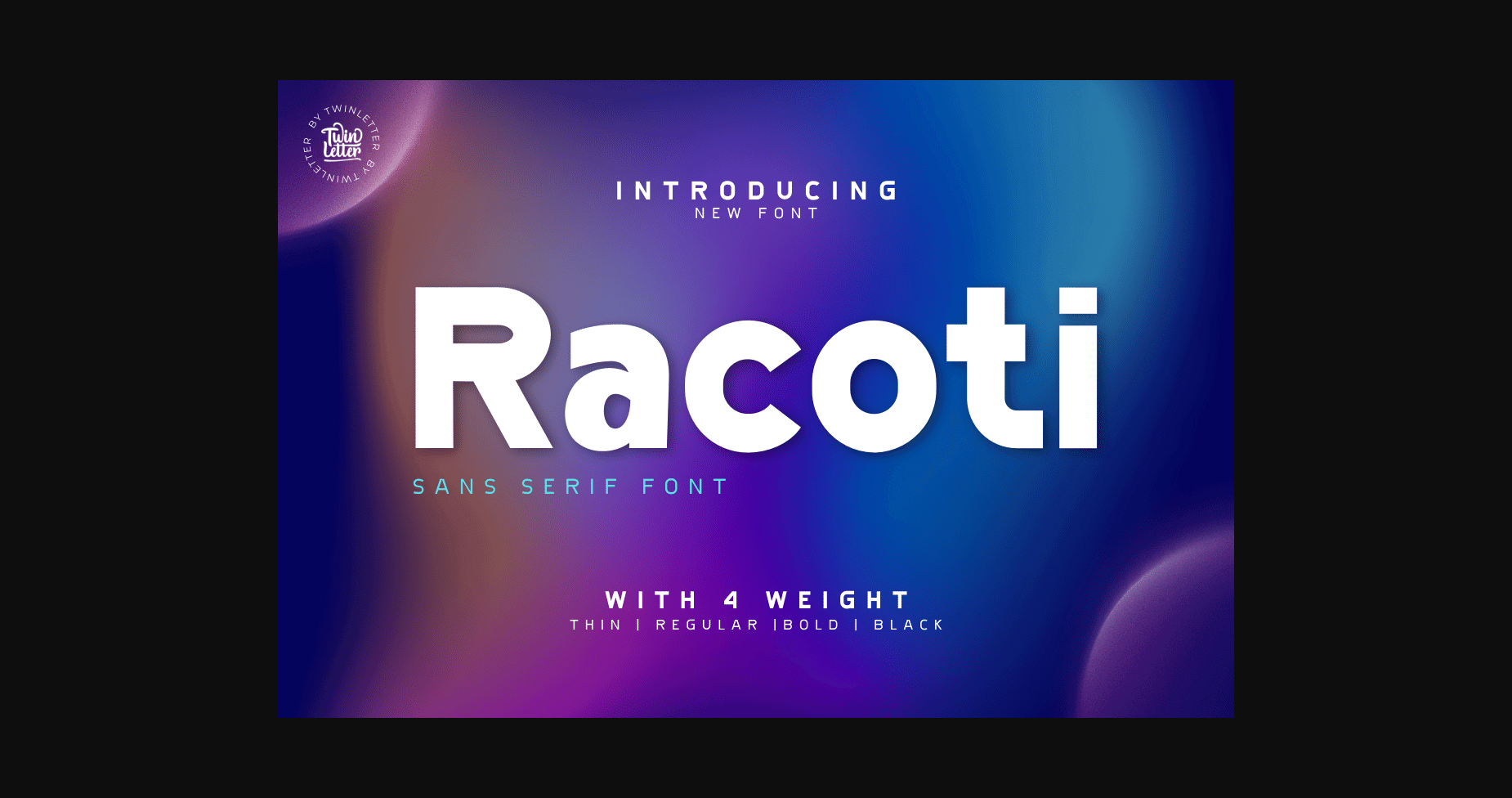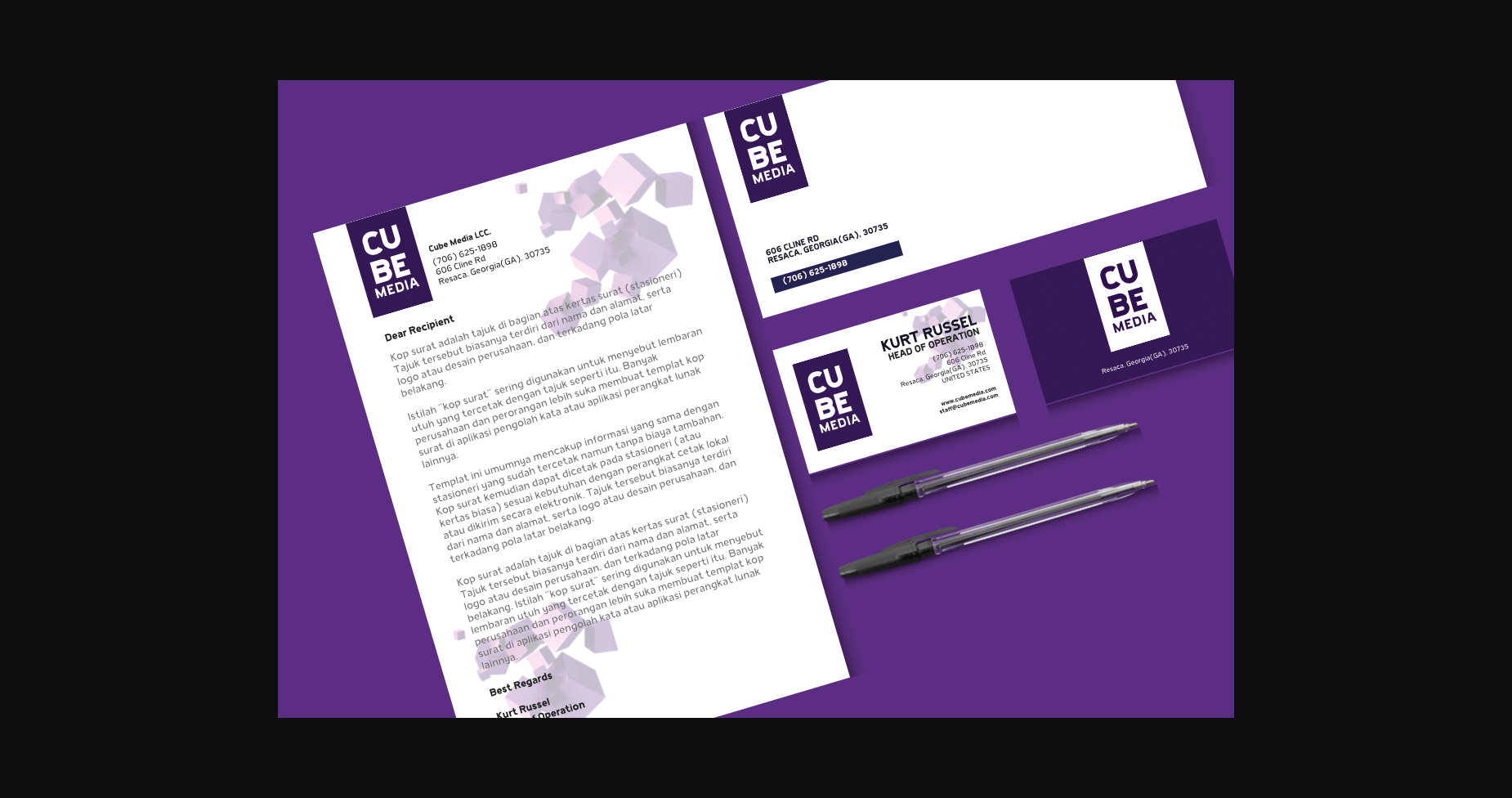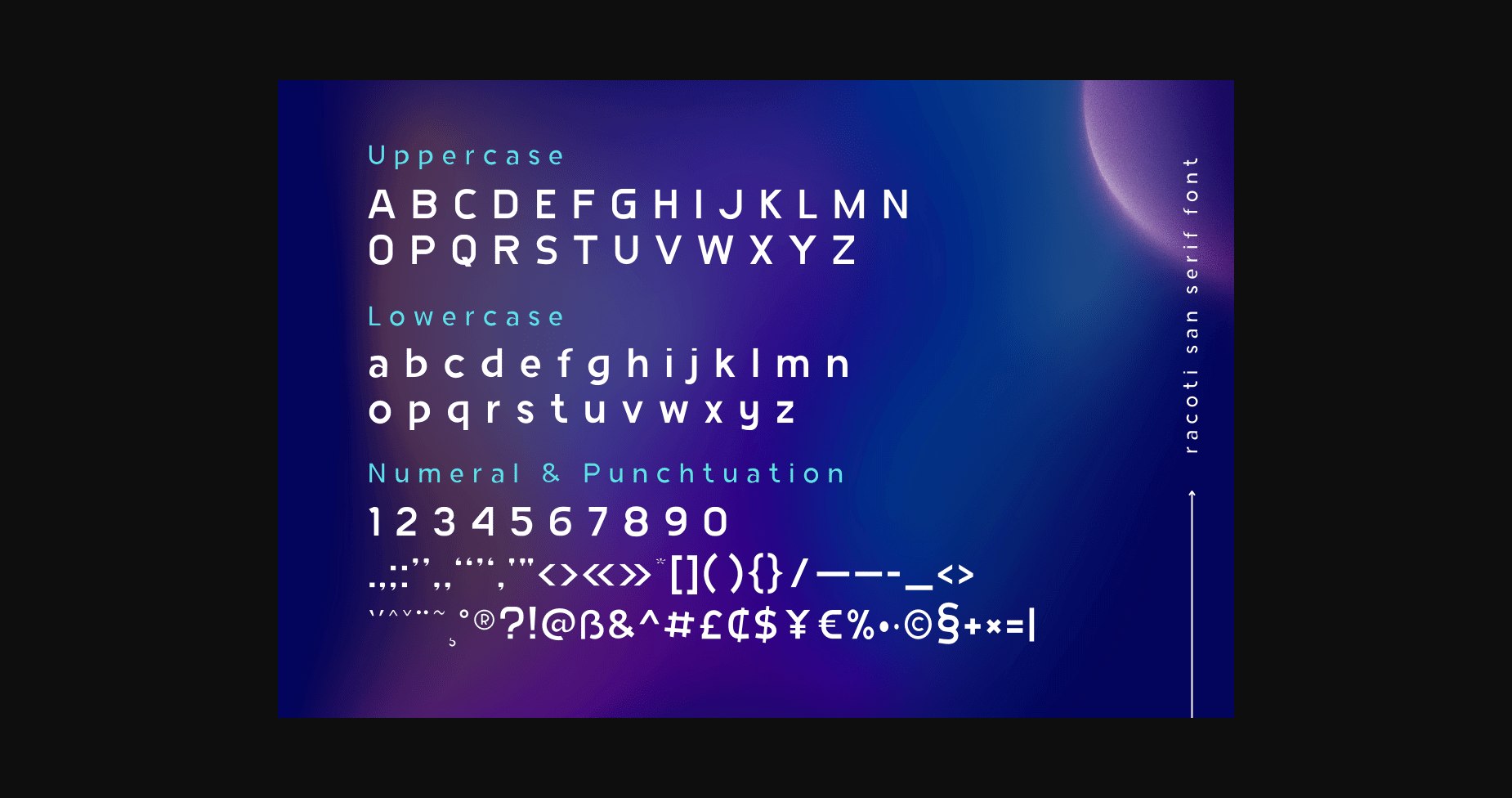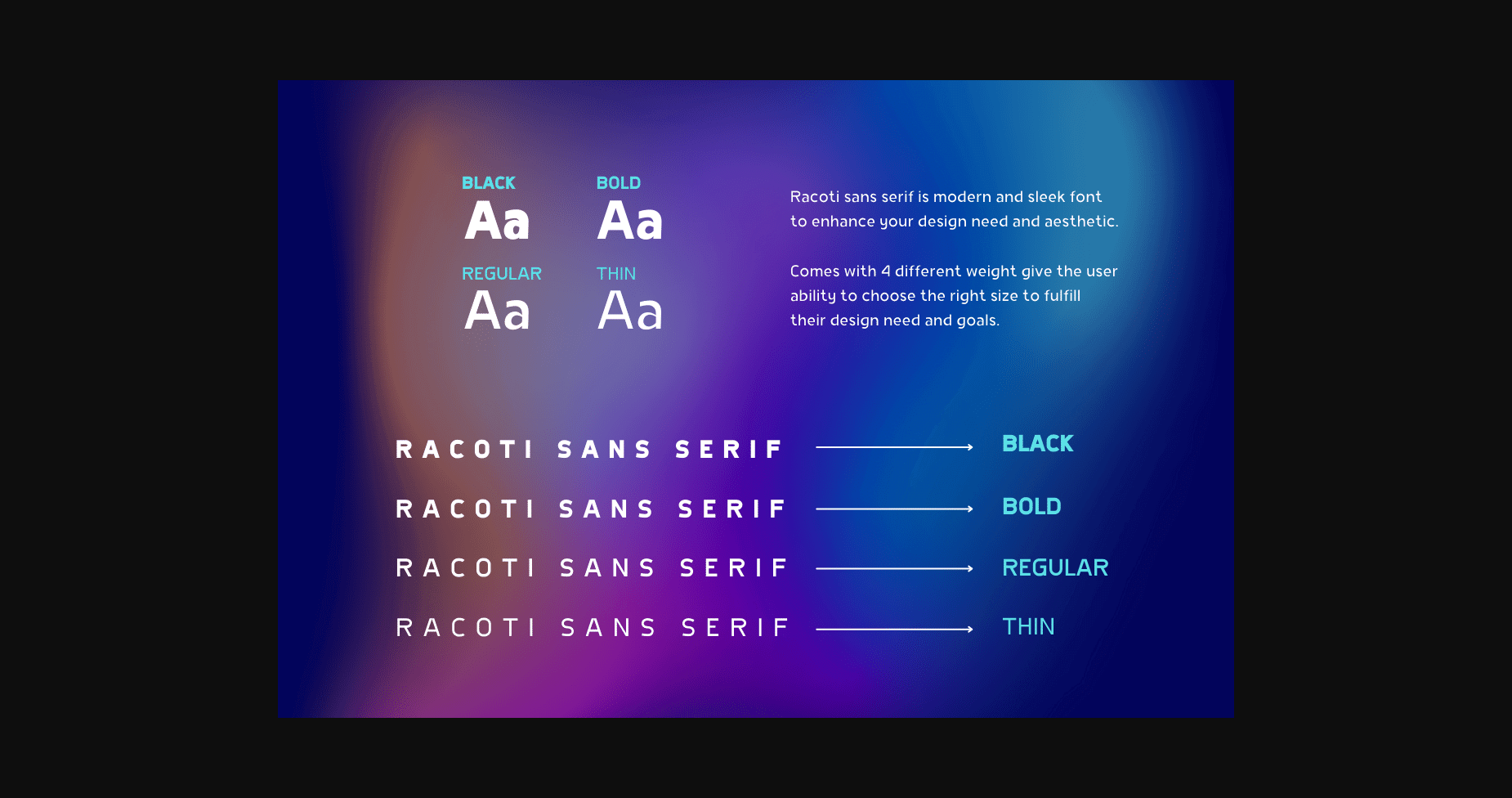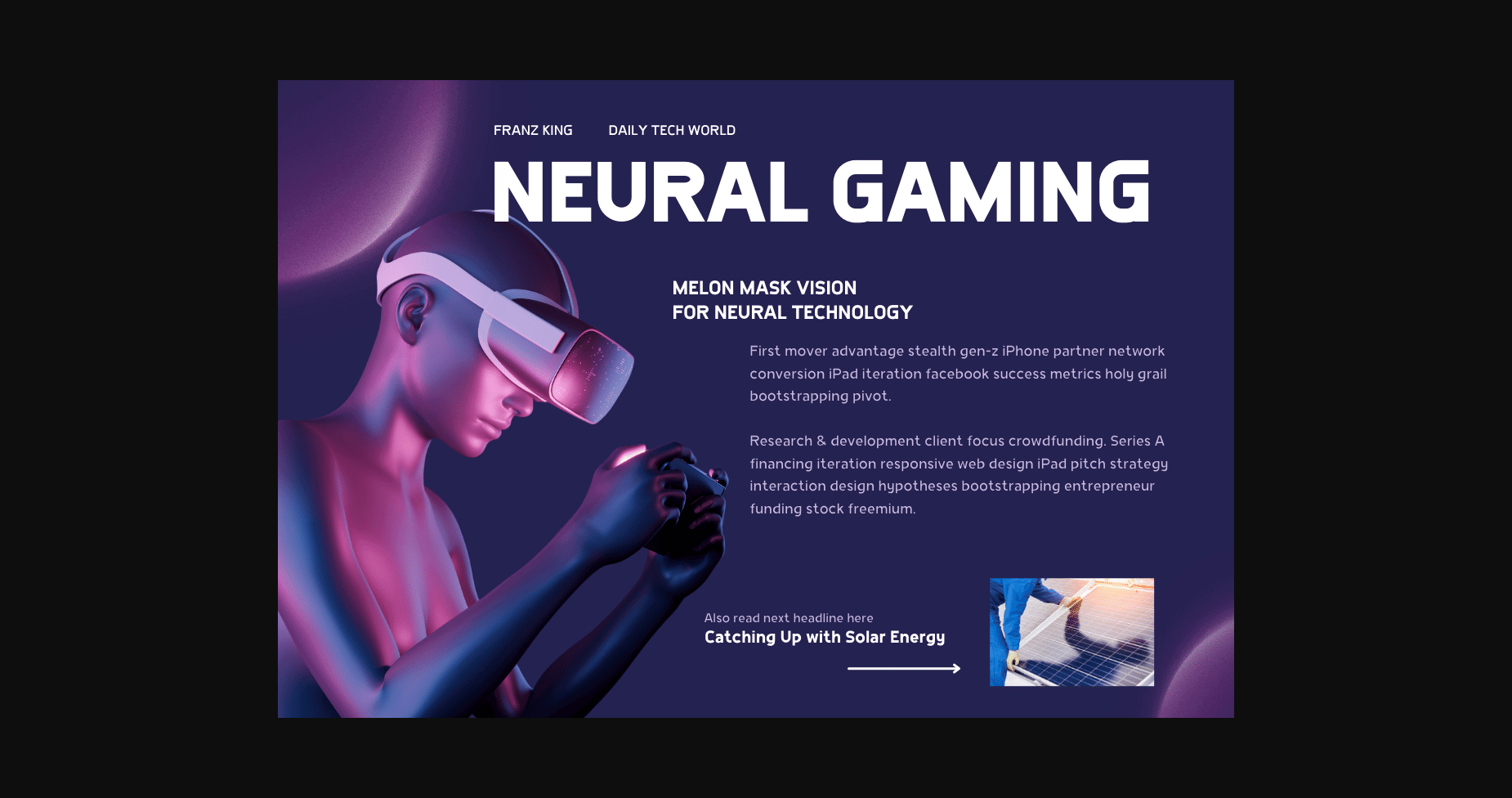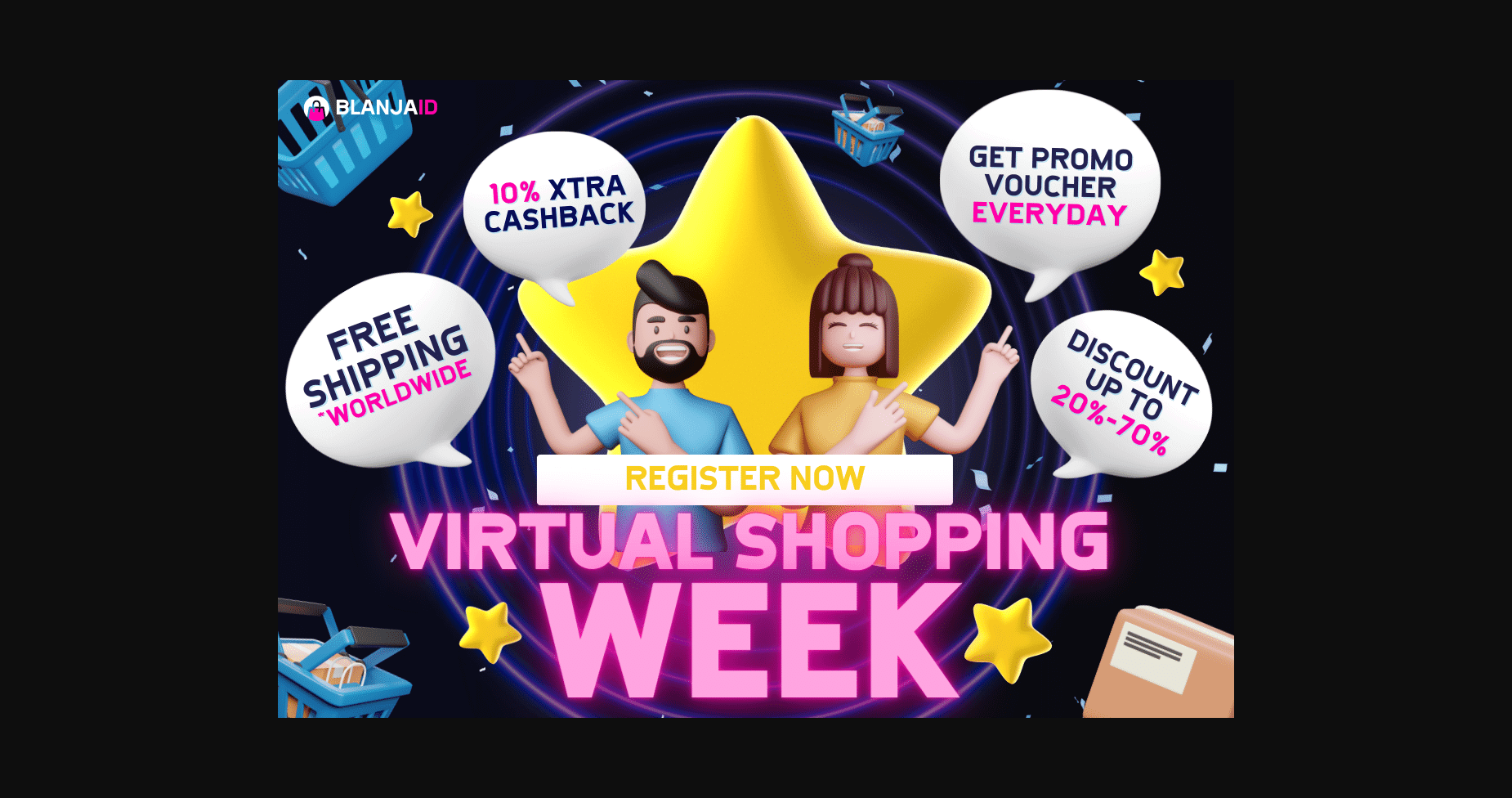
About Racoti Font
Racoti is a various sized, modern looking sans serif font. It is suitable for book texts, documentation, business reports, business correspondence, magazines, newspapers, posters, advertisements, multimedia, and corporate design.